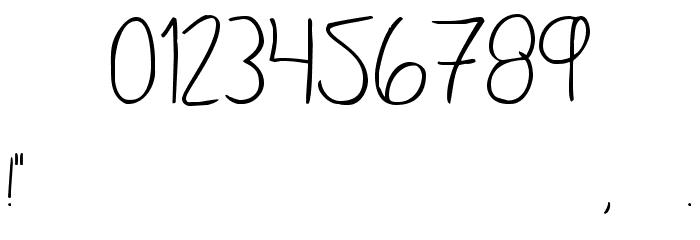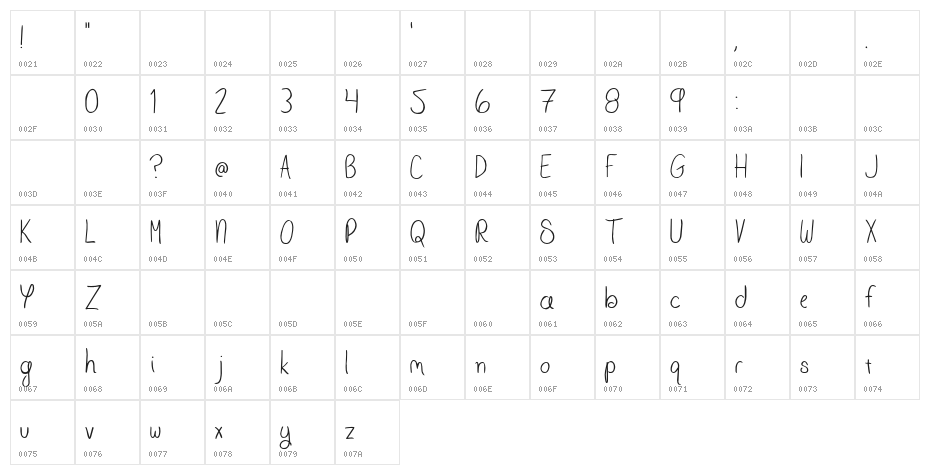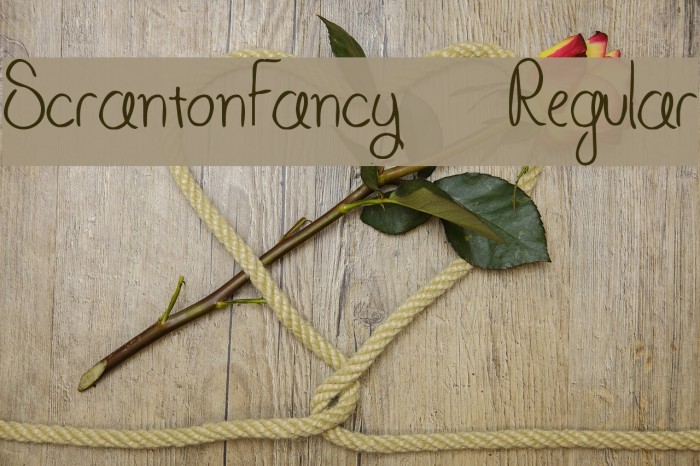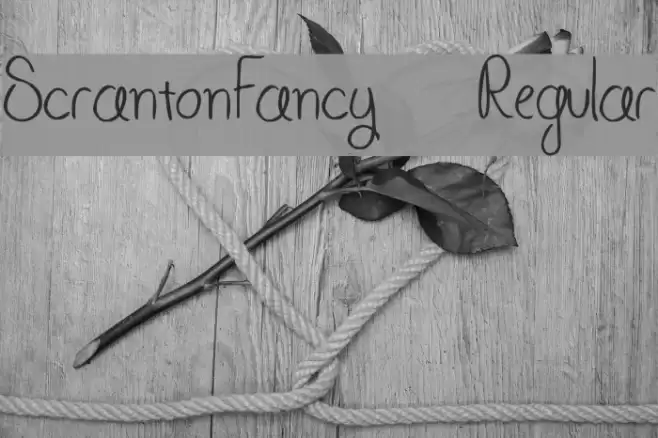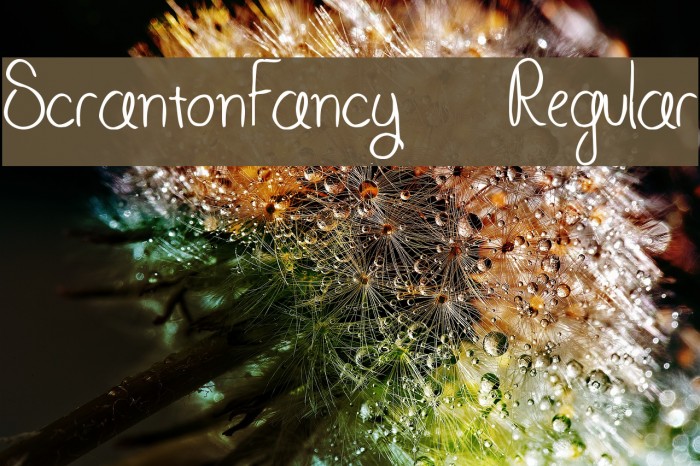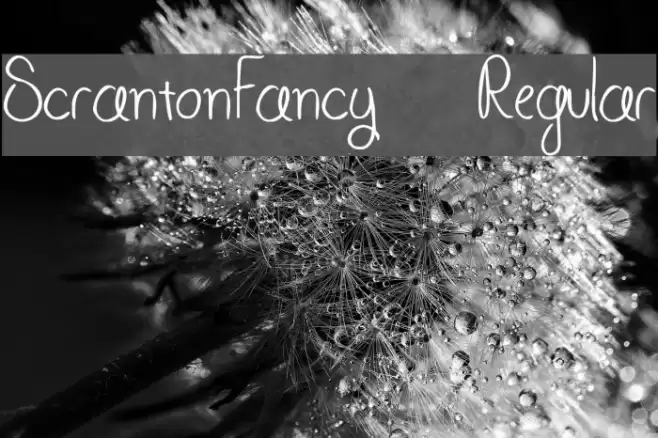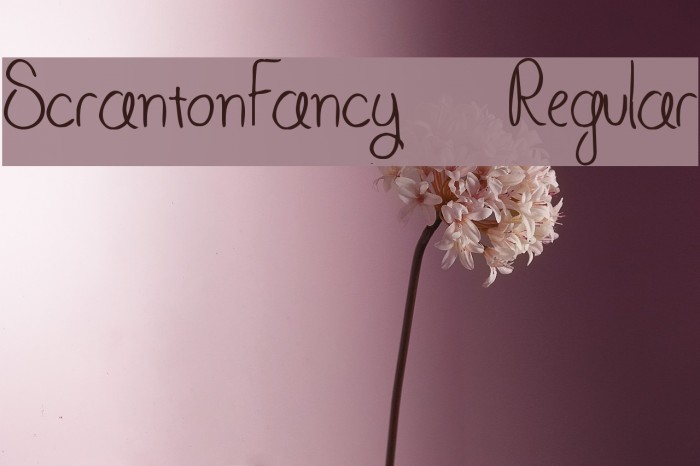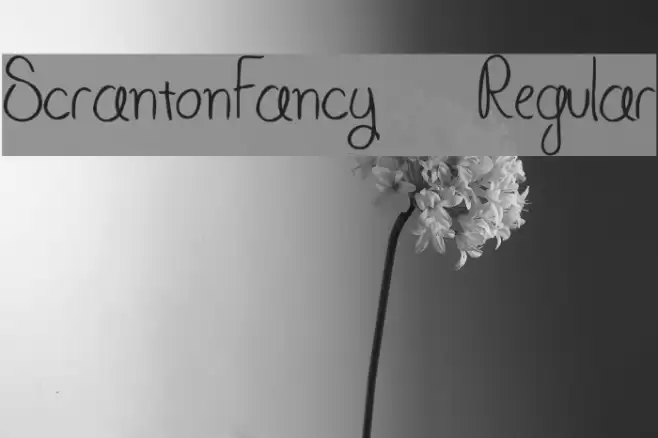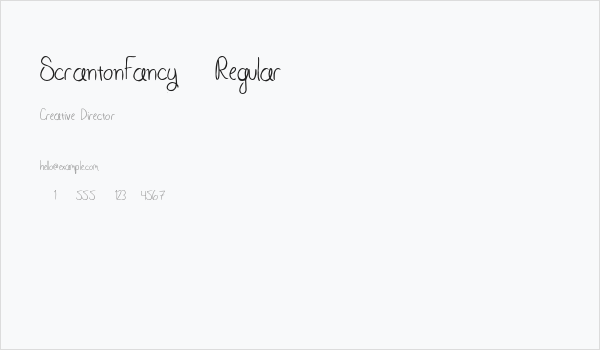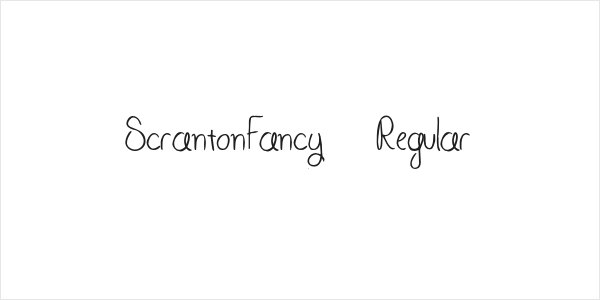
ScrantonFancy-Regular Font
ScrantonFancy-Regular Description
This font features a playful and casual handwritten style, characterized by its smooth, flowing lines and slightly irregular shapes. The letters have a whimsical quality, with varying stroke widths that add a dynamic and lively feel. The uppercase letters are tall and slightly narrow, while the lowercase letters maintain a consistent height, creating a harmonious balance. The numerals are rounded and match the overall playful aesthetic. This font includes a limited set of special characters, enhancing its versatility for informal and creative projects.